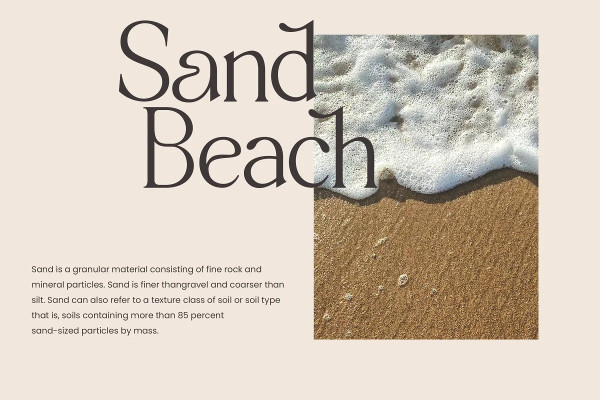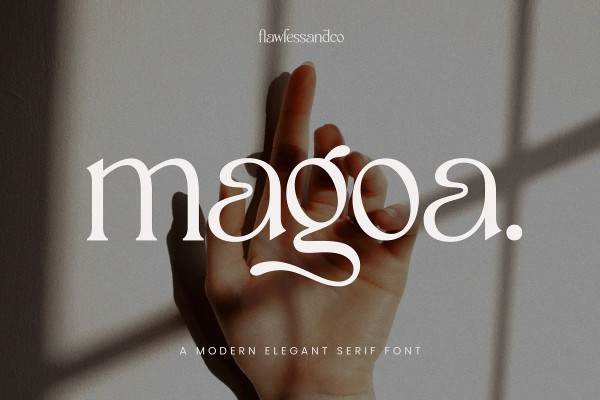
Magoa Font
Magoa Font – Modern Elegant Serif Font, our new “magoa” Modern Font with Elegant Style is perfect for branding, logos, invitation, master heads, and more.